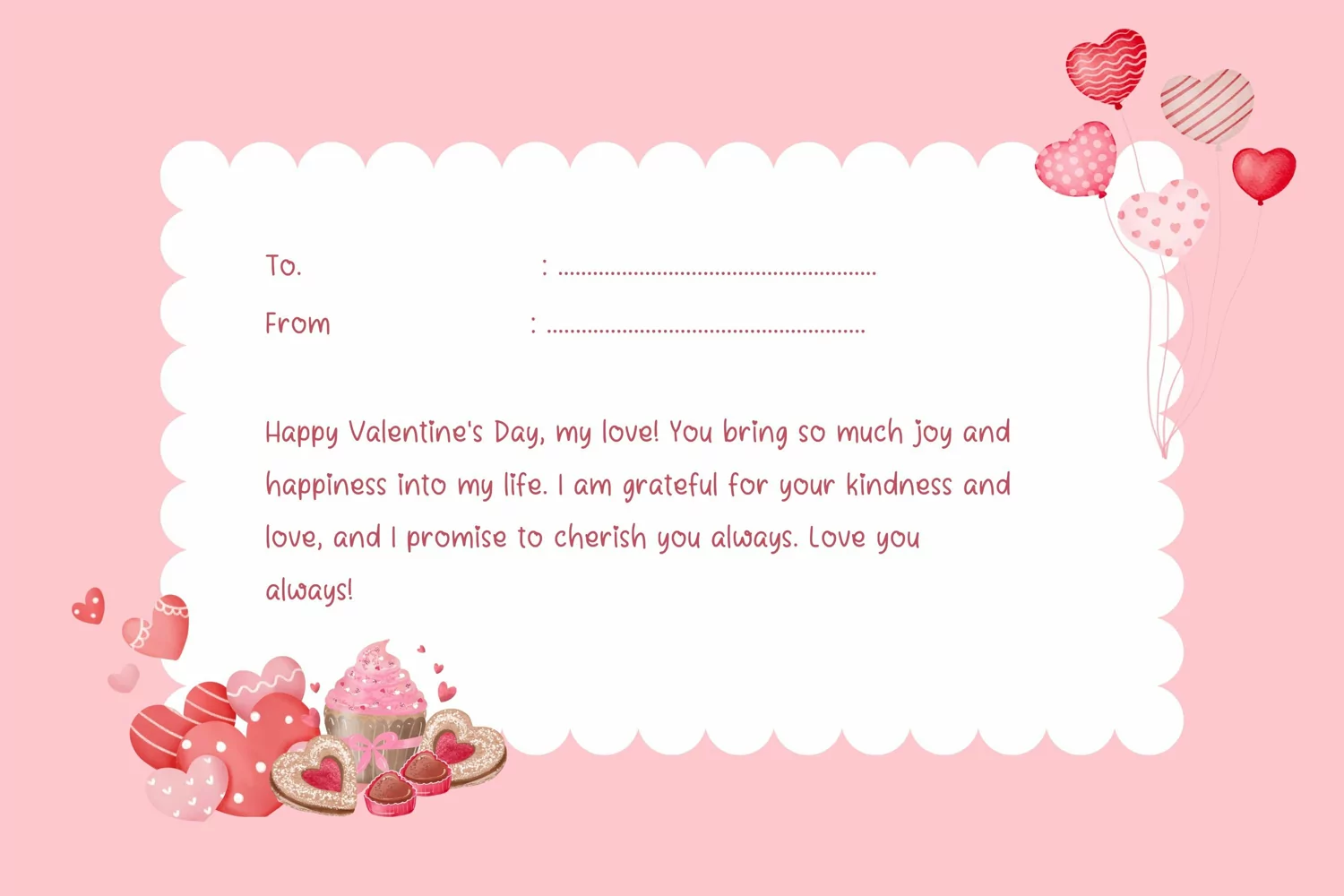
Introducing Meliowra - a delightfully playful and whimsically fancy handwritten font. Its unique touch adds a sense of fun and creativity perfect for crafting inviting greeting cards, ornate café menus, distinctive shop price lists, and so much more. With Meliowra, your design possibilities are truly countless.